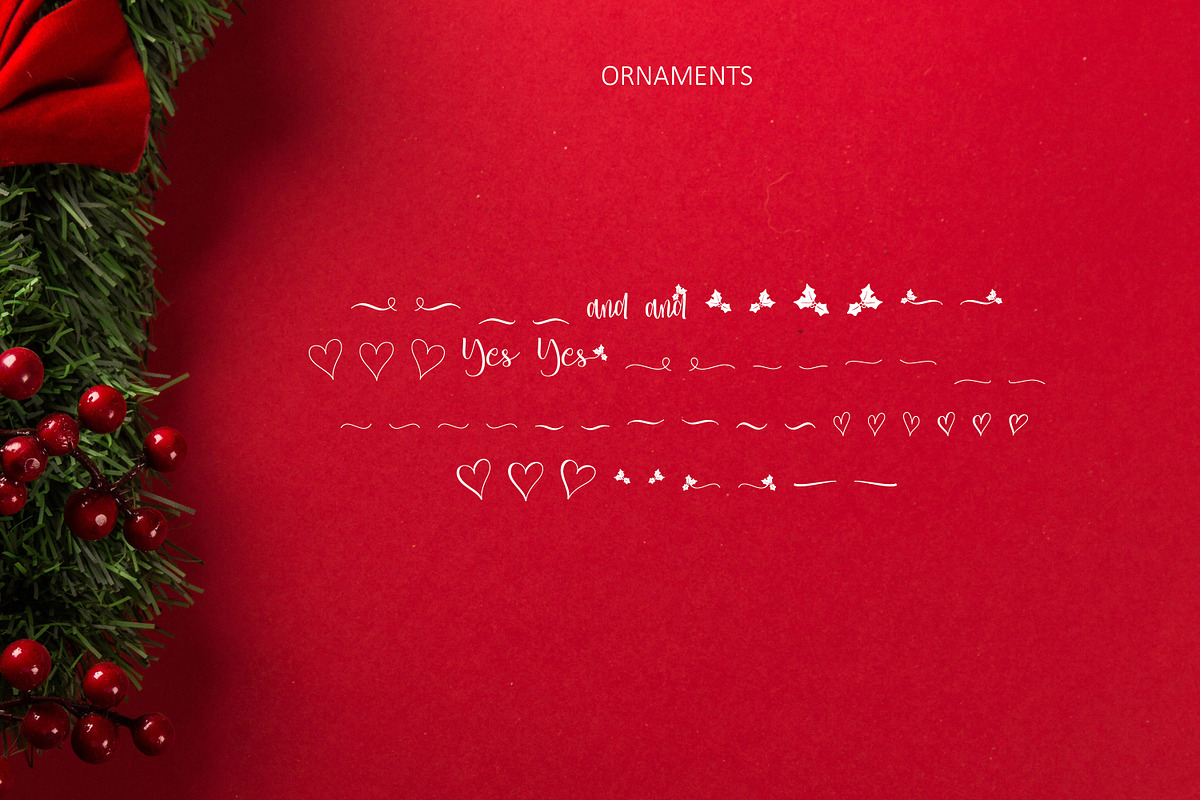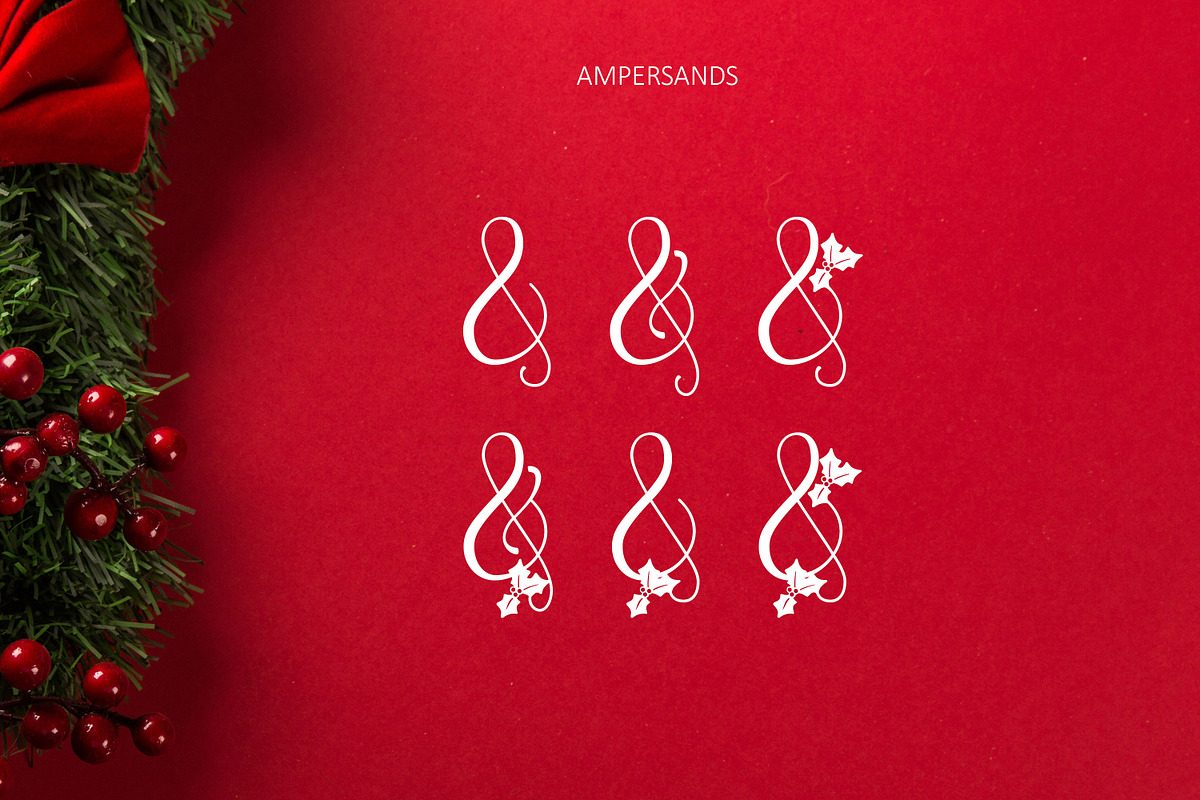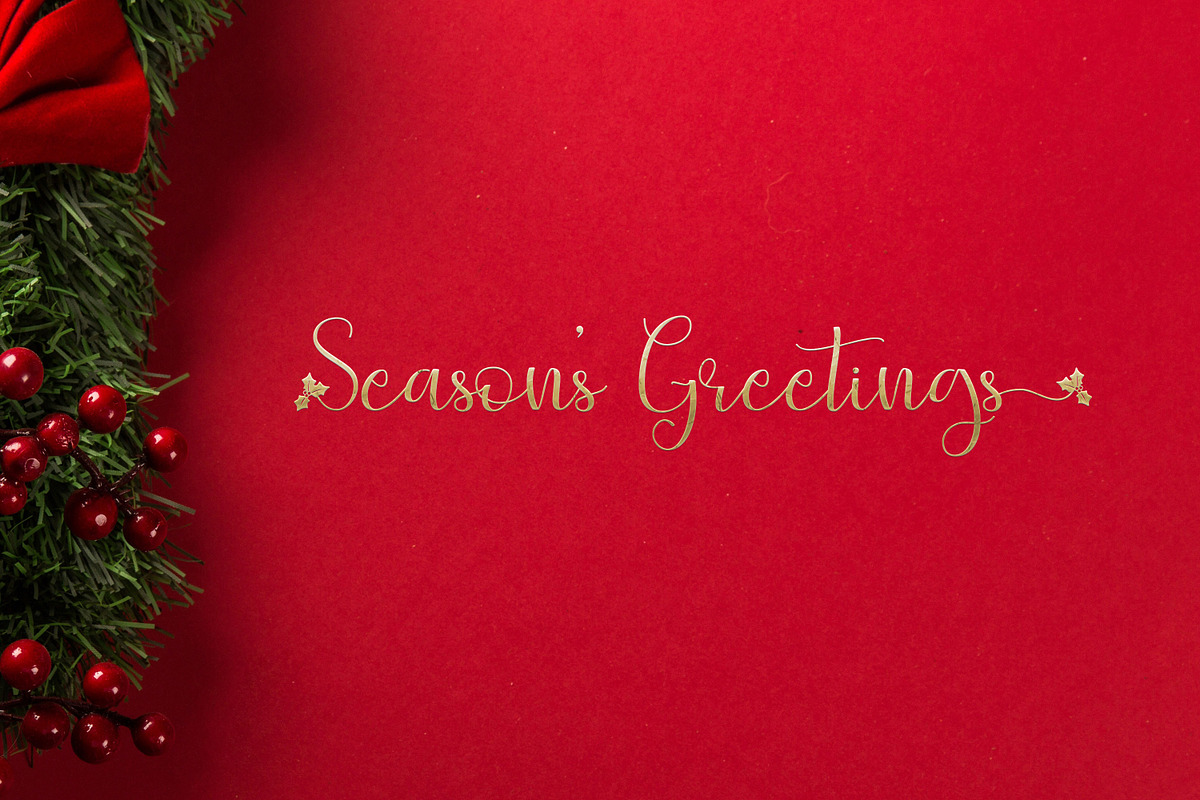
Beneath the Mistletoe
Introducing Beneath The Mistletoe - a cute, handwritten script with mistletoe swashes perfect for your Christmas designs. Boasting 6 alternate ampersands, alternate numerals, and decorative ornaments to help make your Christmas design unique. Perfect for invitations, banners, mugs and apparel designs.
- Beneath The Mistletoe
- Beneath The Mistletoe Left swashes
- Beneath The Mistletoe Right swashes
- Beneath The Mistletoe Ornaments
- 6 alternate ampersands
- Alternate decorative numerals